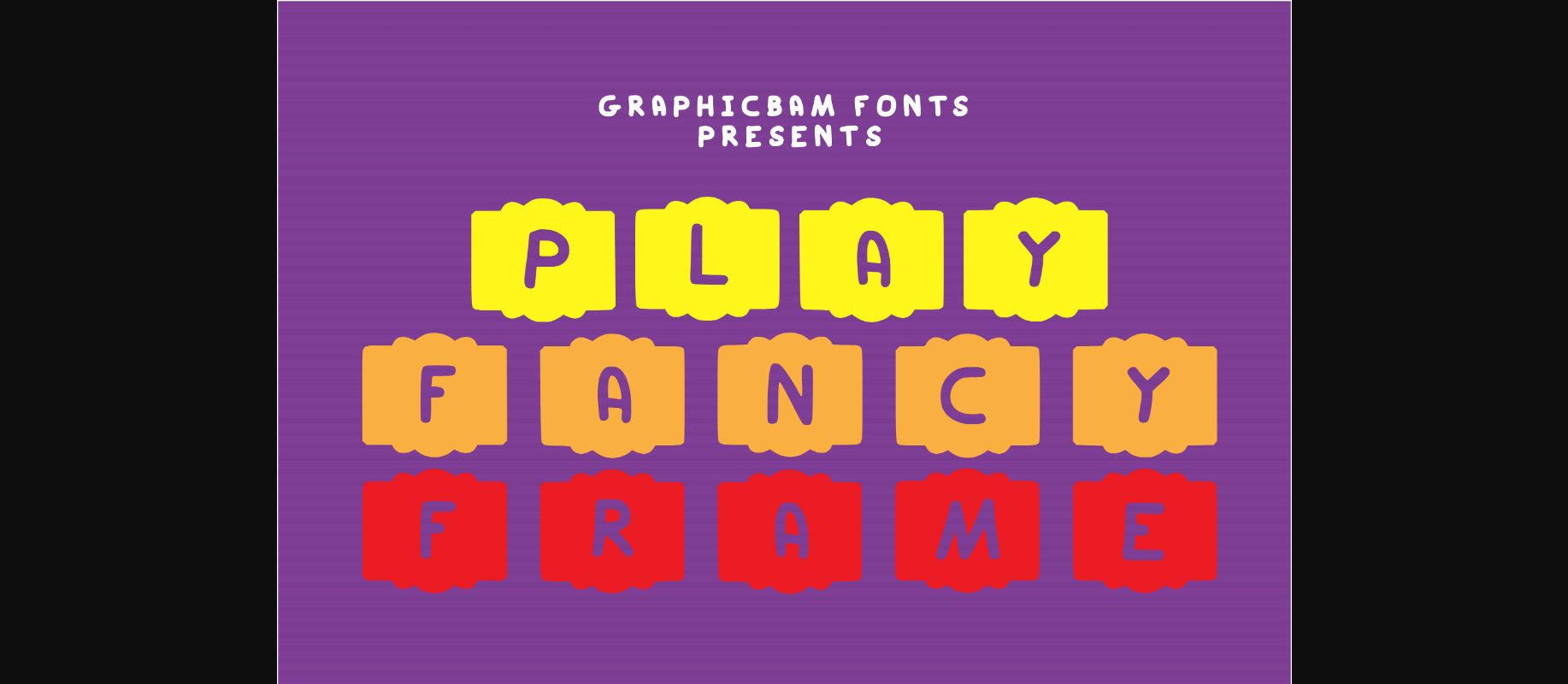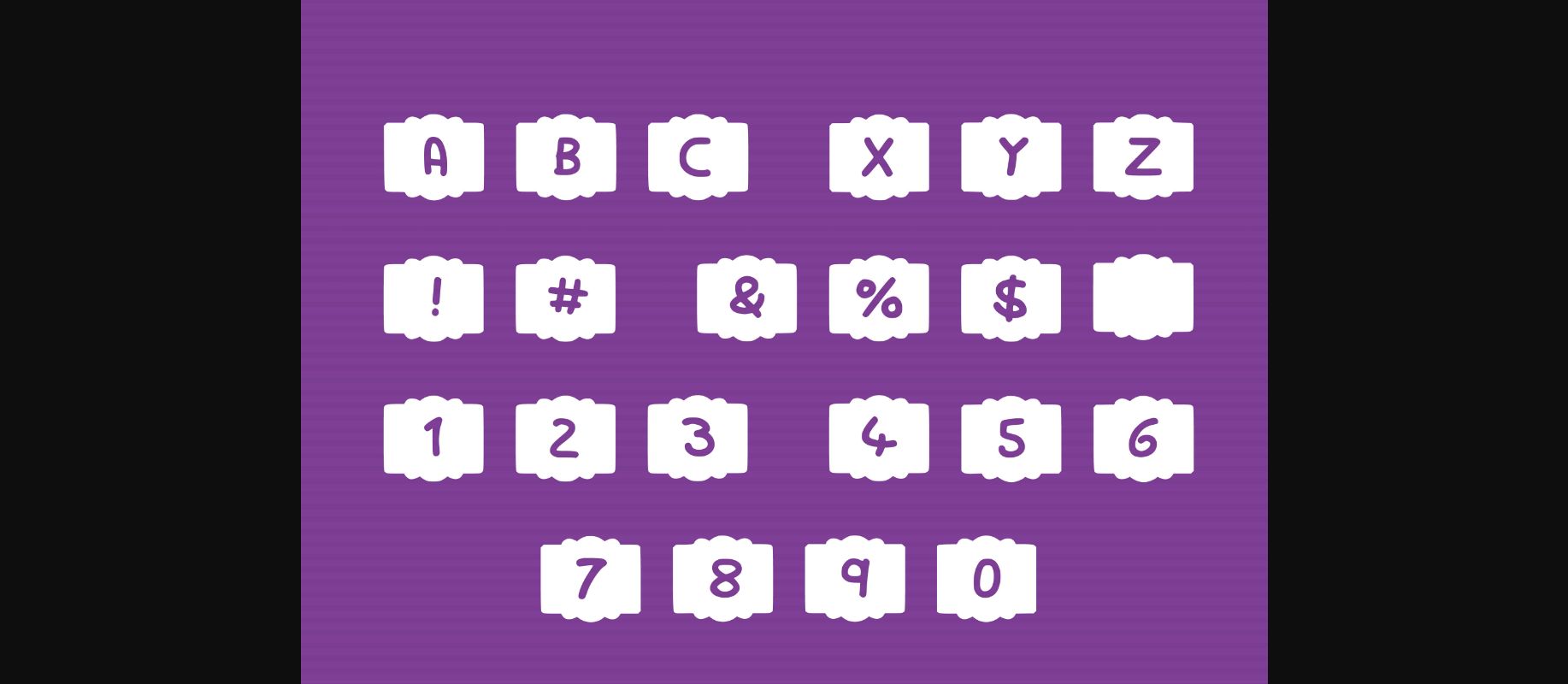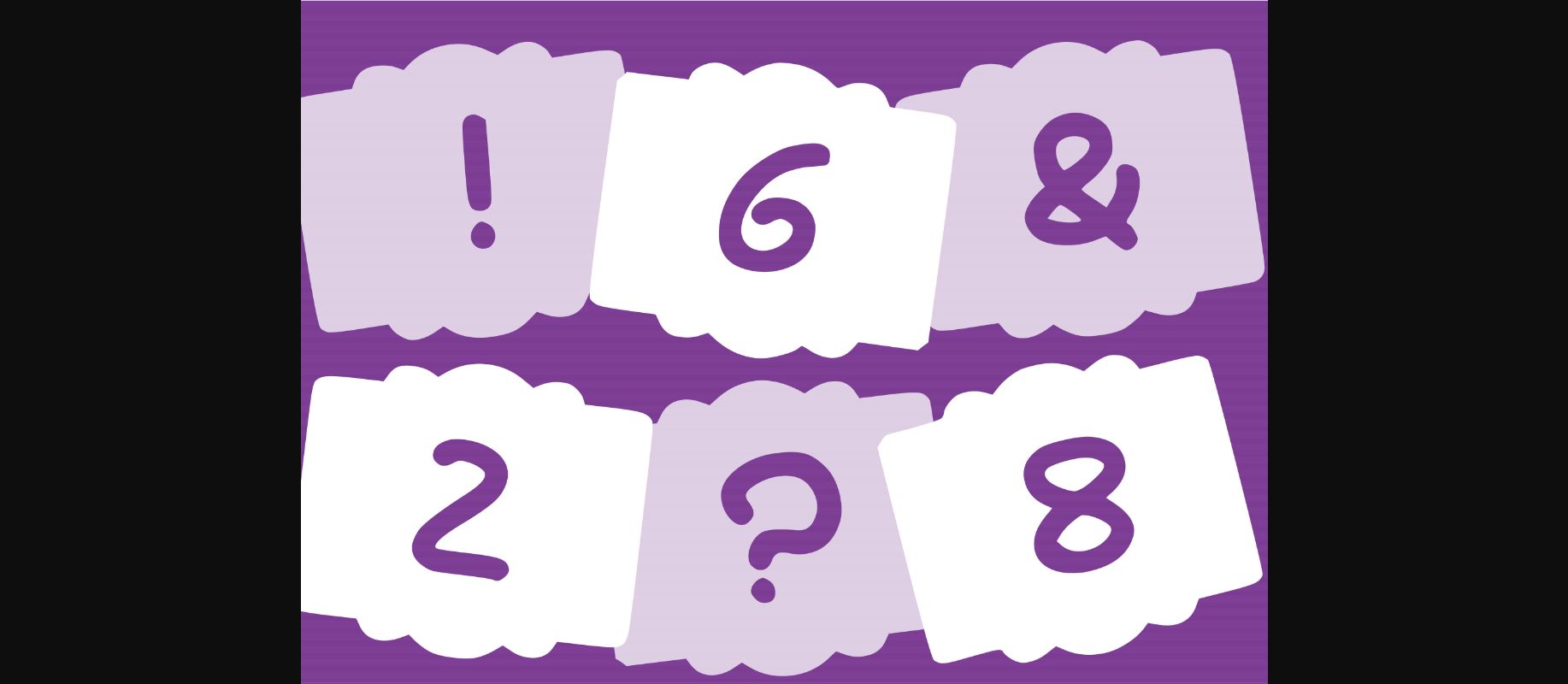
Play Fancy Frame Font
About Play Fancy Frame Font
Play Fancy Frame is a playful and fun decorative font. It is perfect for celebratory designs, birthday banners, gift packaging, school designs, and other bold and creative ideas!